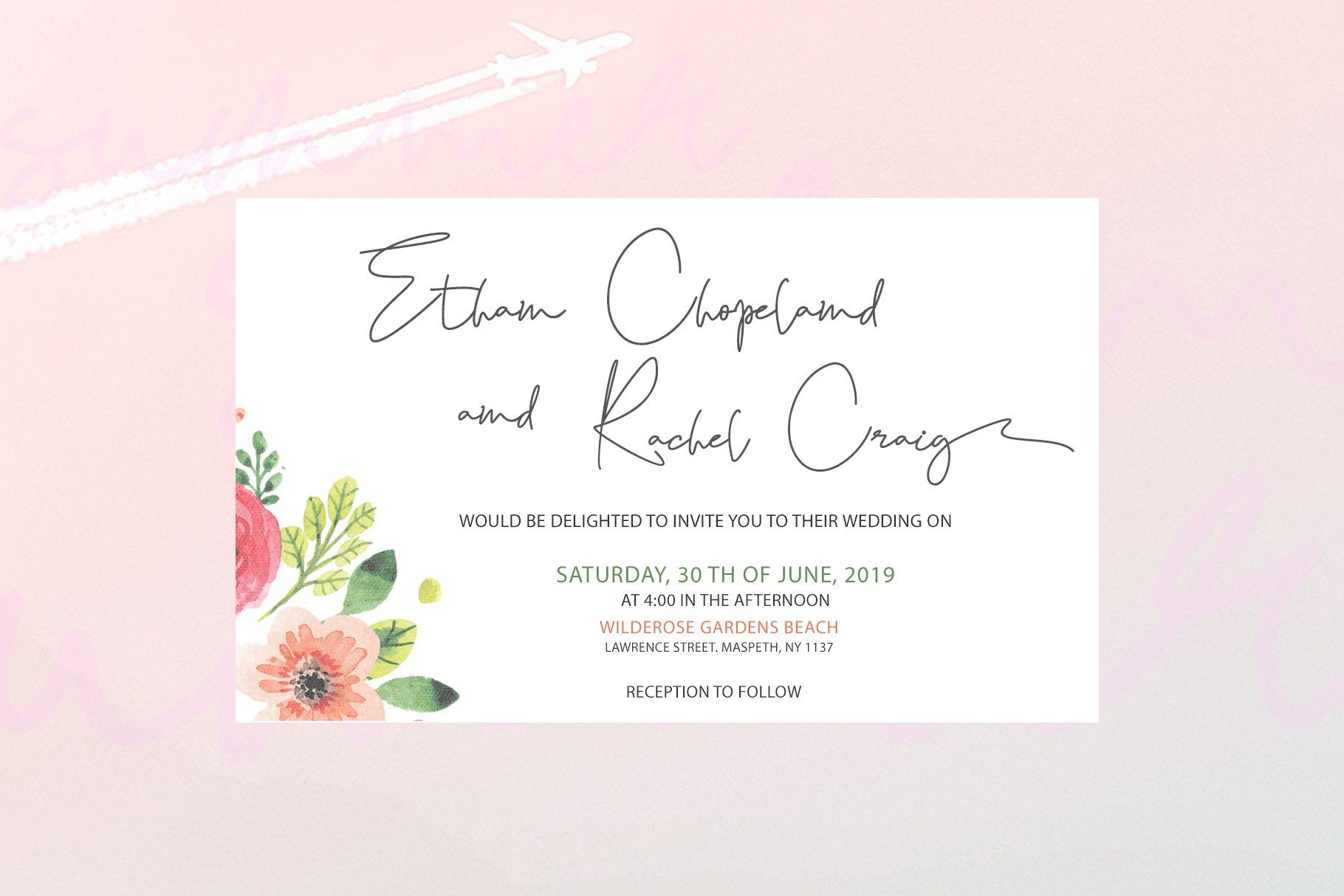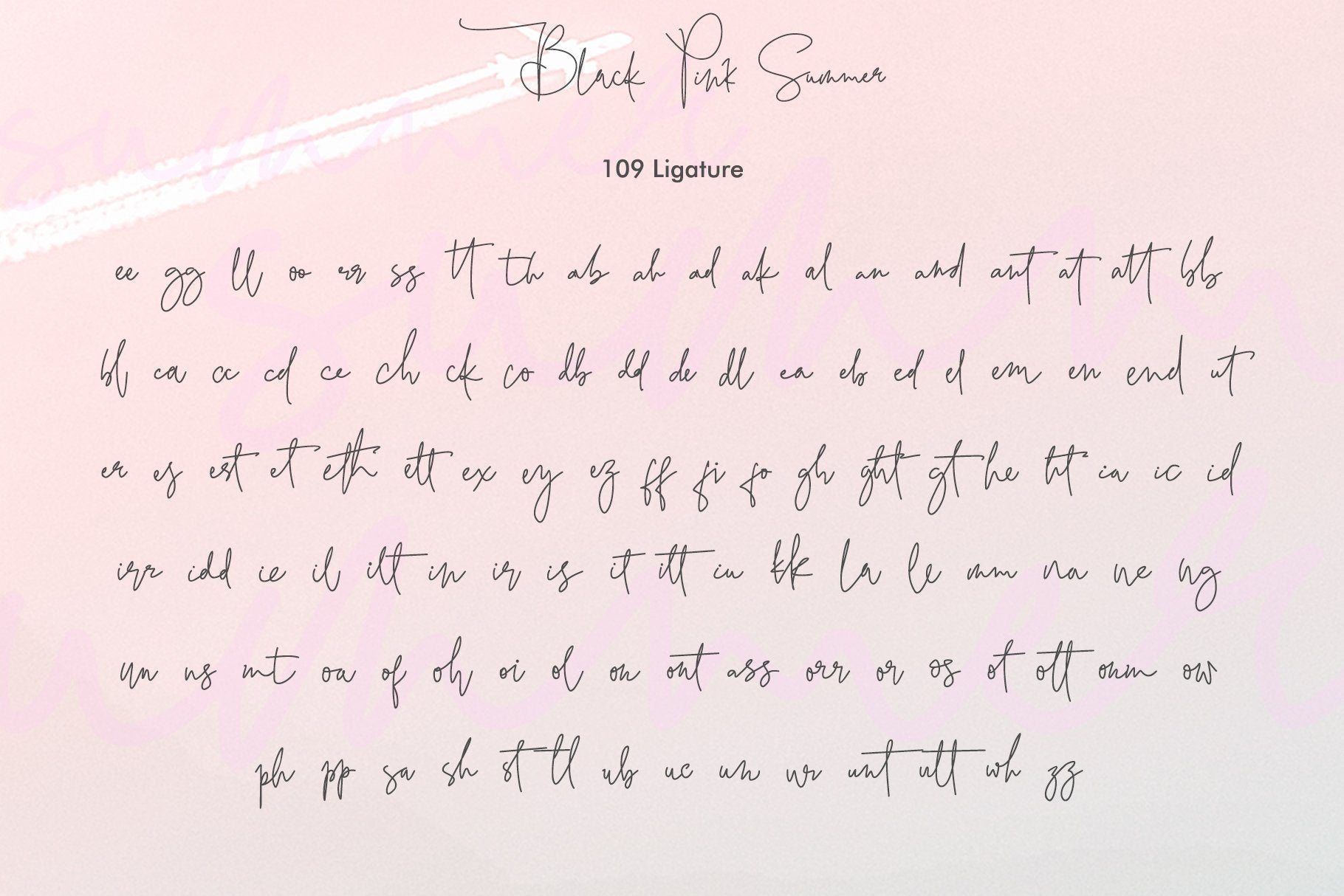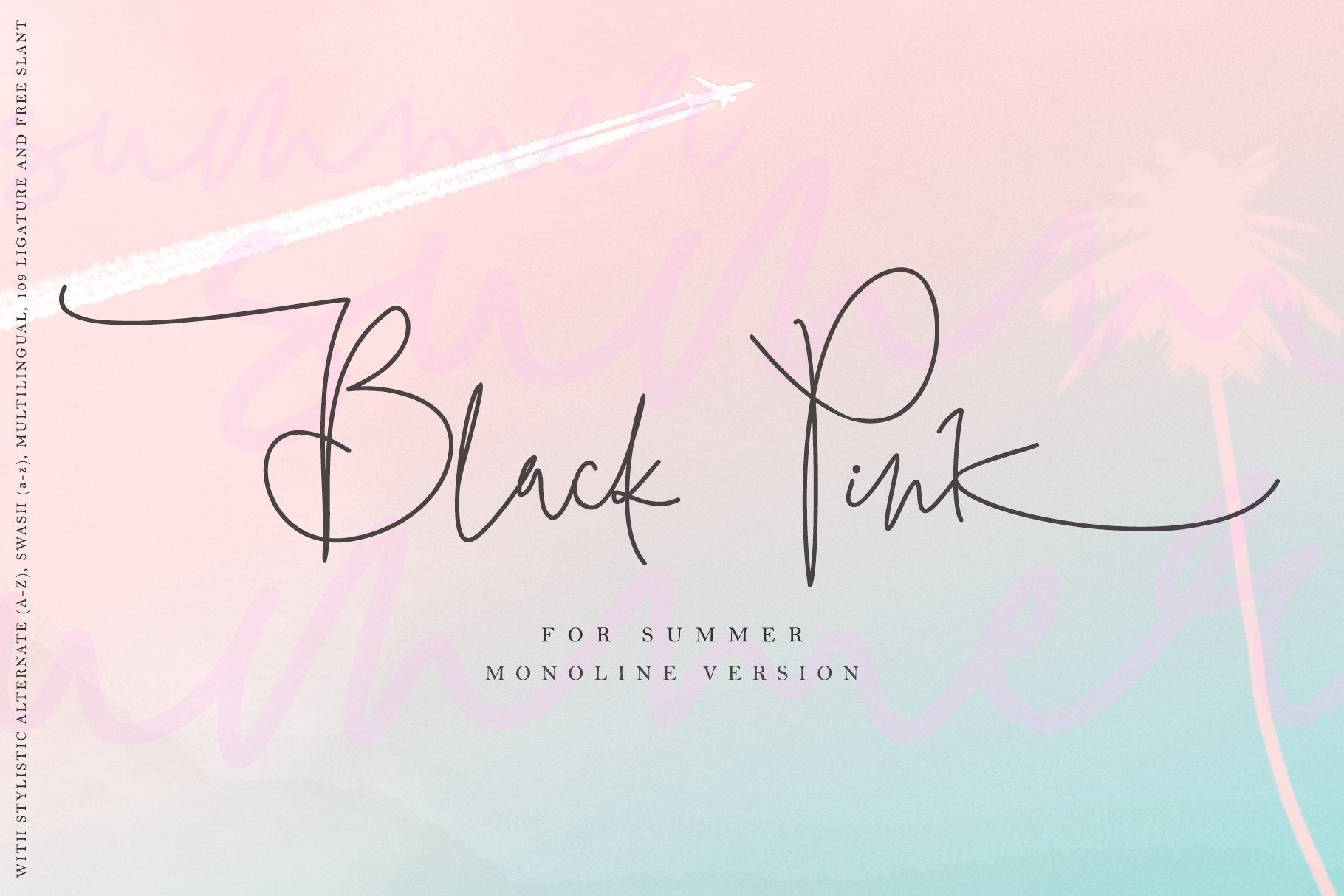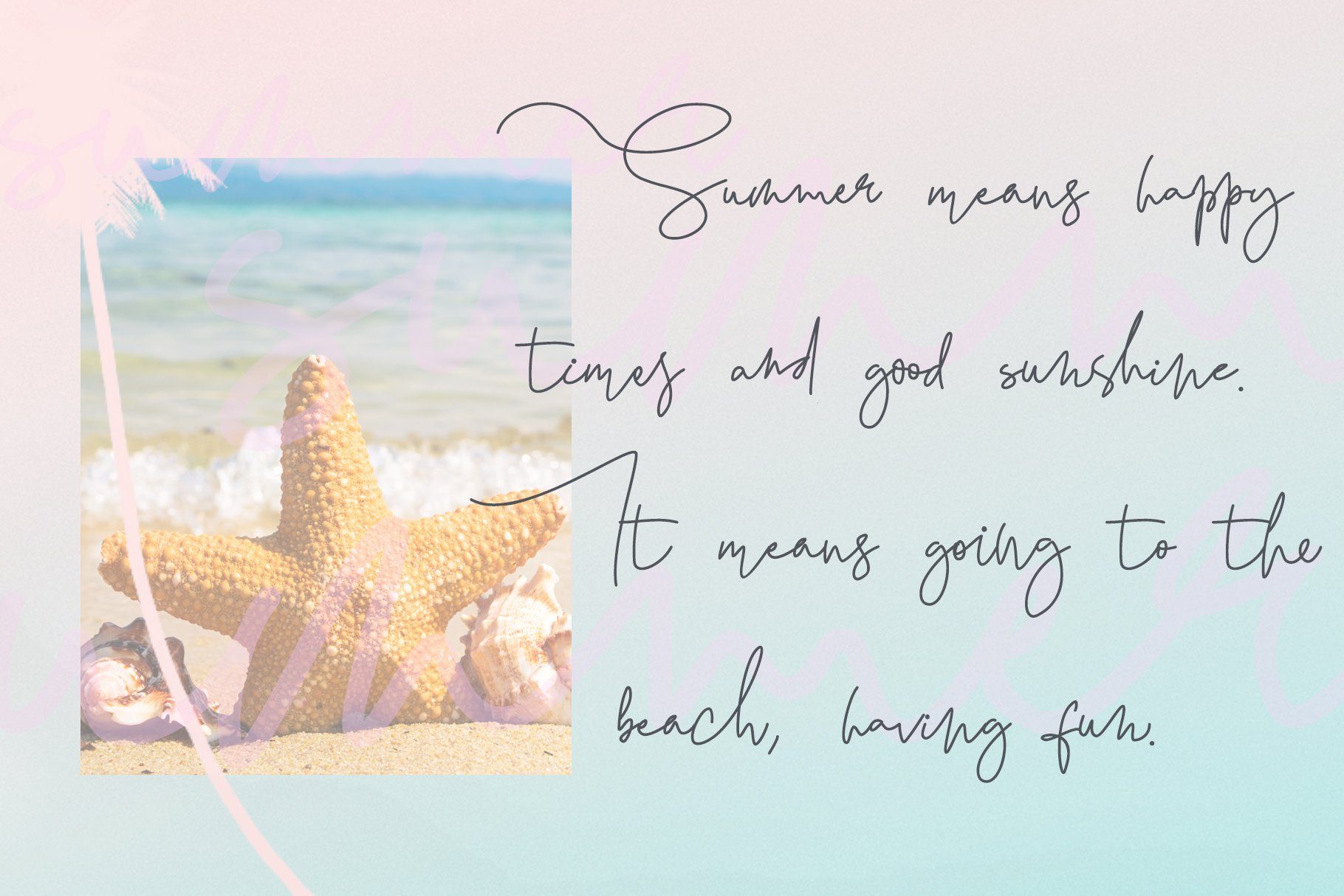
About BLACK PINK SUMMER
introducing a new beautiful calligraphy font, Black Pink Summer! This is the monoline version of the black pink signature. Created for summer. Black Pink Summer is perfect for beautyfull logo, elegant logos, upscale packaging, wedding stationery, websites, and any other projects requiring a handwritten and luxurious touch. A wide range of swashes (a-z) and alternates (A-Z) are included so that you can give your logo or name a custom, hand-calligraphy look. Moreover, Black Pink Summer font was created to look as close to a natural handwritten script as possible by including 109 ligatures. With built in Opentype features, this script comes to life as if you are writing it yourself.You can see it in the picture shown. don’t wait anymore, put it in your shopping basket 🙂 and follow me, because there will be many promos! Features : – Upper Case & Lowercase – Numerals – Punctuations (OpenType Standard) – Accents (Multilingual characters) – Ligatures and Alternative Style Stylistic Set – Works on PC & Mac – Simple installations – Accessible in the Adobe Illustrator, Adobe Photoshop, Adobe InDesign, even works on Microsoft Word. Our other products : BEST SELLER BLACK PINK SIGNATURE ANDORA BRIGITTA SANTERIA HEANFFE GALGADOT EIFFEL IN LOVE ( FONT TRIO) SUMMER CHERRY